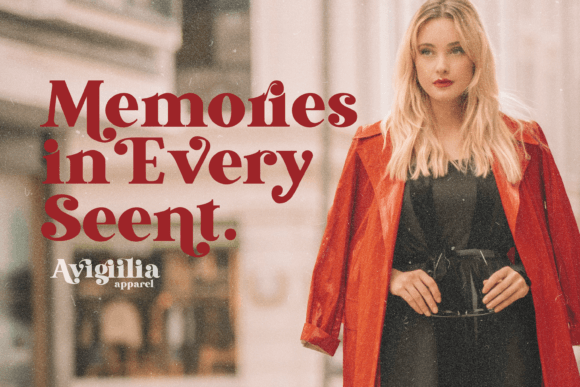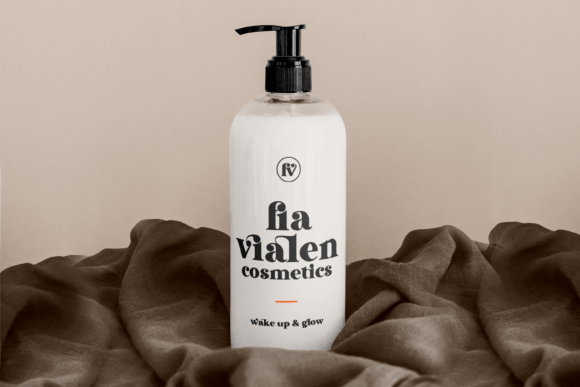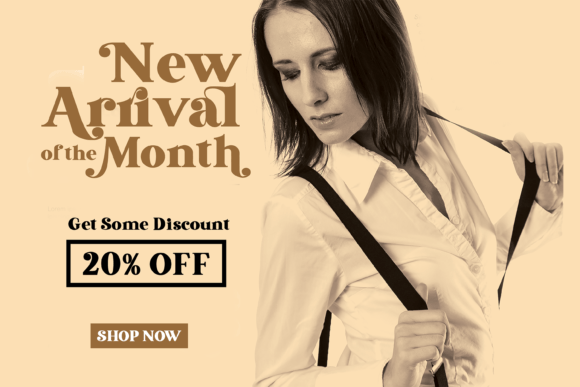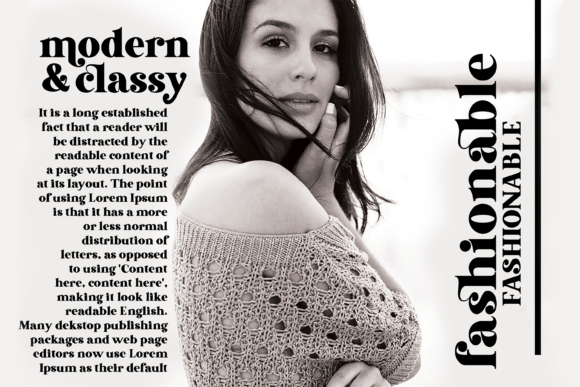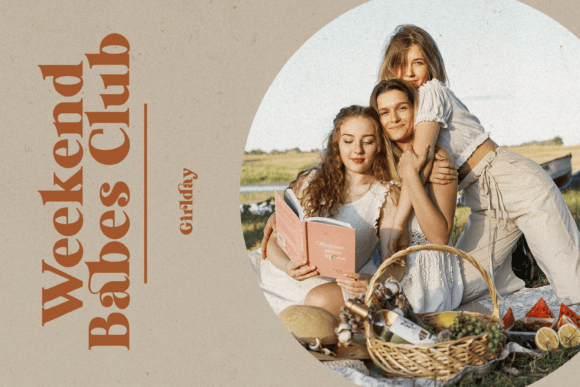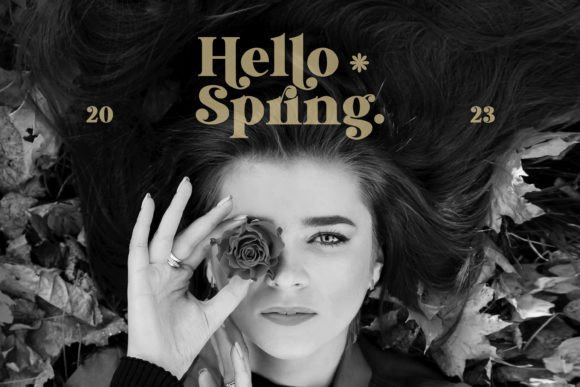
Introduction to Poshgirl Font
Poshgirl is a slick, modern, chic, elegant, and refined serif font with a simple and symmetrical wheelbase.
It was made with boldness, optimism, and joy It is defined by smooth curves and is perfect for fashion brands or editorial designs.